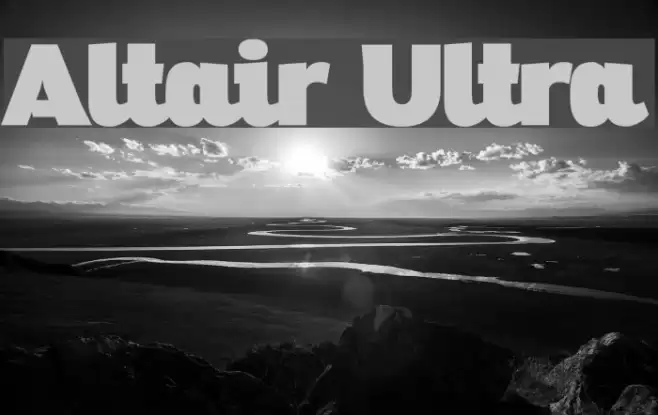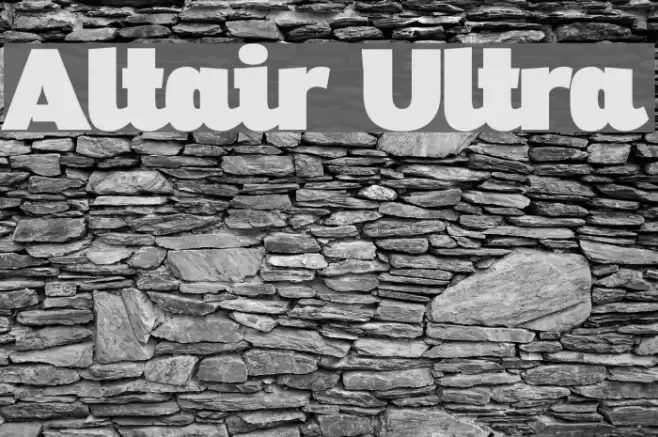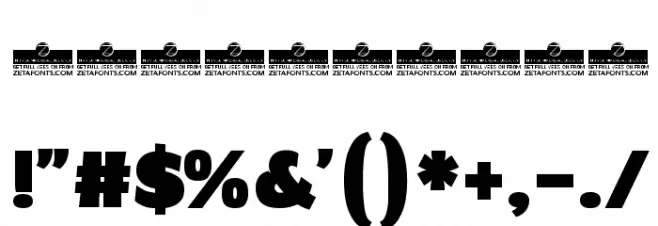
Altair Ultra Font
Altair Ultra Description
This bold and striking font features thick, block-like characters with a strong presence. The uppercase letters are robust and commanding, while the lowercase letters maintain a consistent weight, offering a cohesive look. The font's design is characterized by its solid, geometric shapes and minimal contrast between thick and thin strokes, giving it a powerful and modern appearance. The numerals and special characters are equally bold, ensuring uniformity across all text elements. This font's style is both contemporary and versatile, making it suitable for a variety of design applications.
A bold, modern font with strong, geometric characters and minimal contrast from Uncategorized fonts.